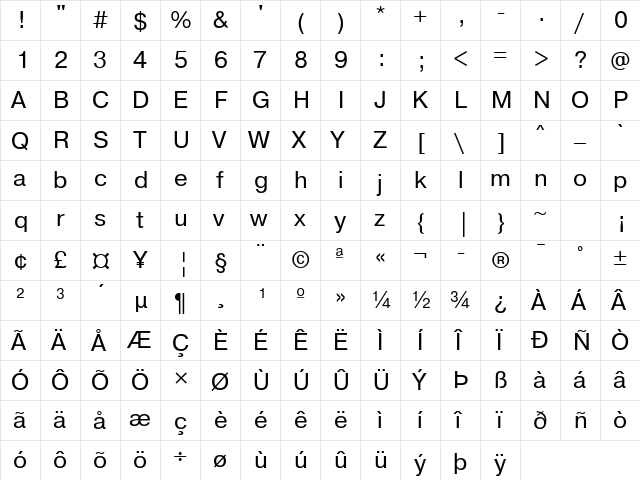
PragmaticaATT Regular Font Preview
PragmaticaATT Regular
Design Context for PragmaticaATT Typeface
PragmaticaATT is a composed and adaptable typeface that performs quietly and consistently across a wide range of design contexts.